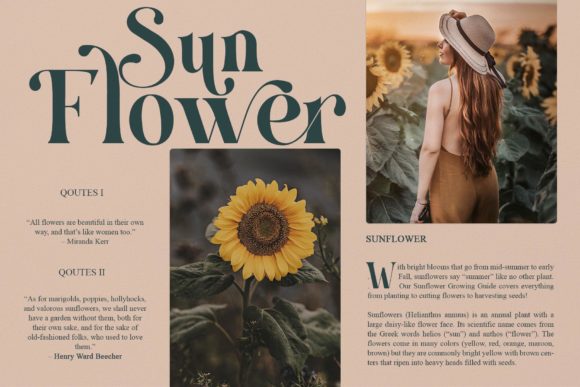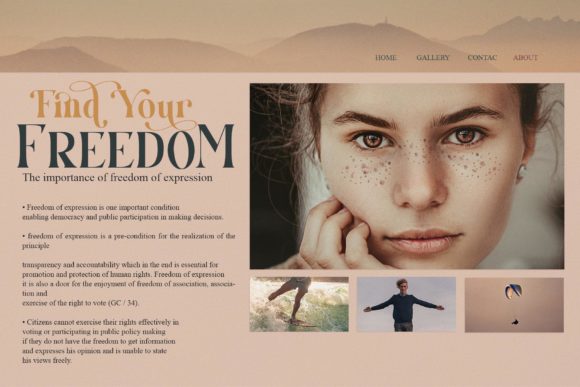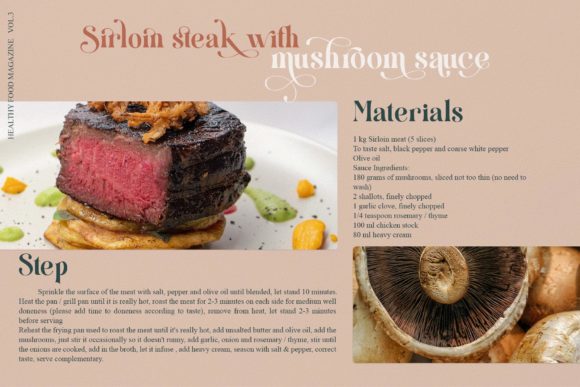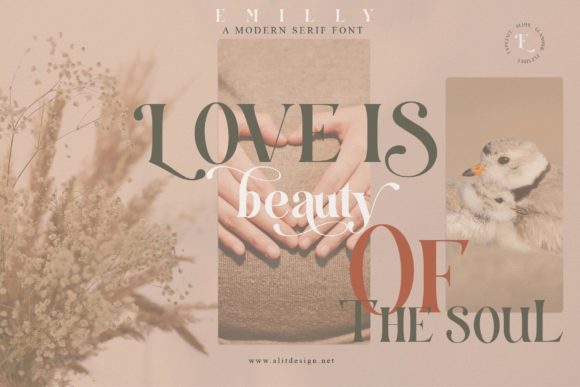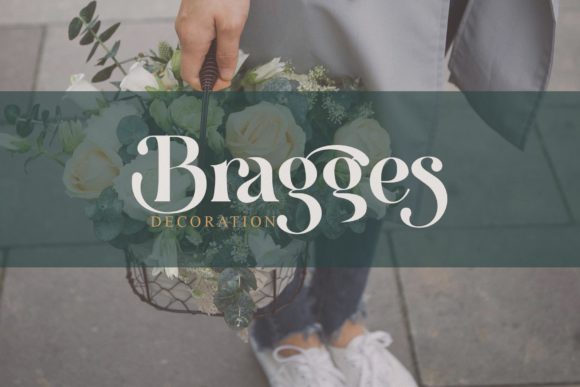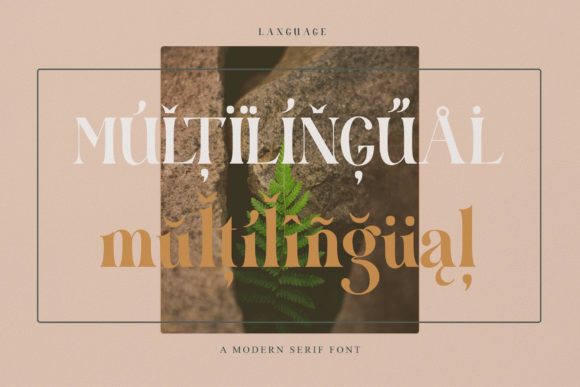
Introduction to Emilly Font
Emilly is a cool and modern serif font.
Expertly designed to make your creation look out of this world, this font has the potential to take your creative ideas far further .
Key Features of Emilly Font
Why Choose Emilly Font?
Emilly Font offers exceptional quality and versatility, making it a valuable addition to your design toolkit. Whether you’re creating for personal projects or commercial use, Emilly Font delivers professional results.